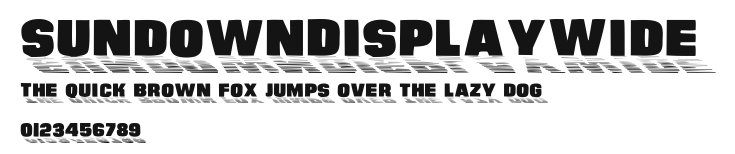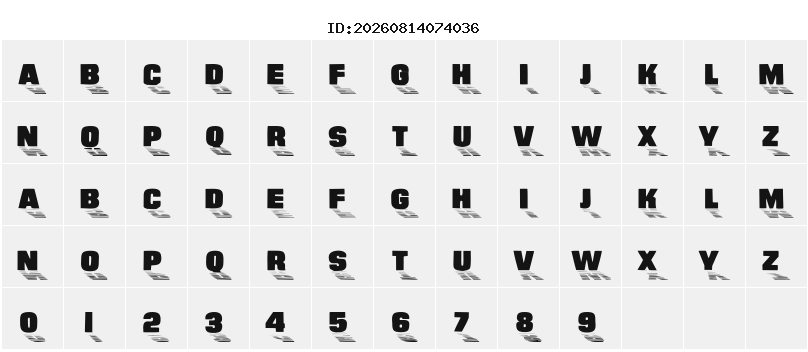
SundownDisplayWide Preview
About SundownDisplayWide.ttf
SundownDisplayWide.ttf is a modern, elegant sans-serif font designed for ultimate readability and visual harmony. Perfect for branding, headlines, web design, and print materials.